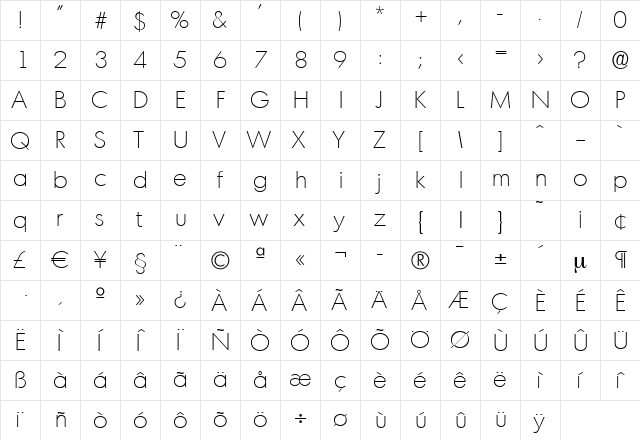
IvanBecker-ExtraLight Regular
Design Context for IvanBecker-ExtraLight Typeface
IvanBecker-ExtraLight offers clean, dependable letterforms without strong stylistic allegiance, making it a practical choice for designers who need flexibility. Its slender proportions lend an understated elegance to any composition.